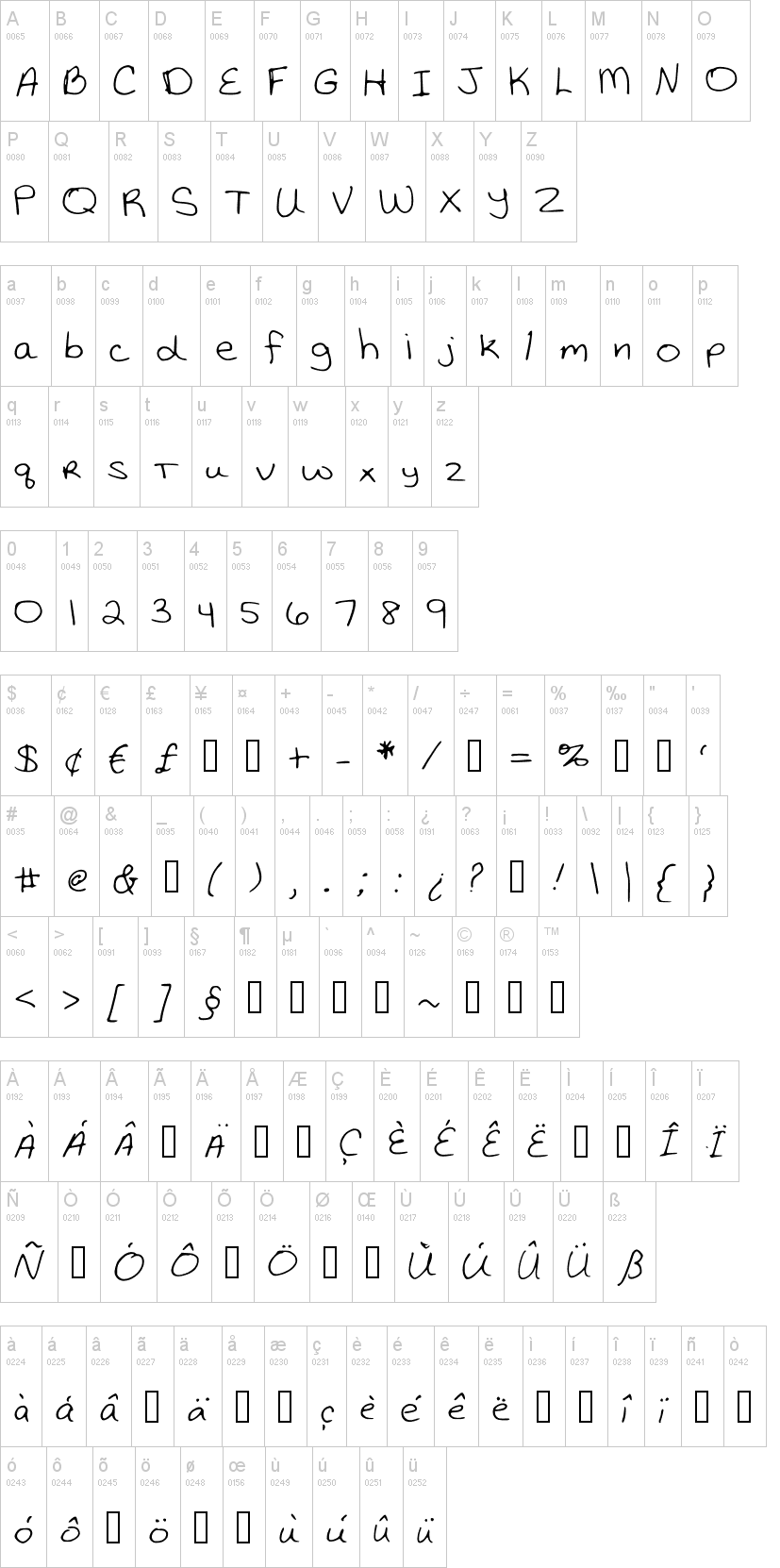
Шрифт Katie Thompsons Handwriting
This is my wife's handwriting. We made it for our own personal use, but we saw no harm in uploading it for everyone to use if anyone ever finds a need for it. Enjoy!